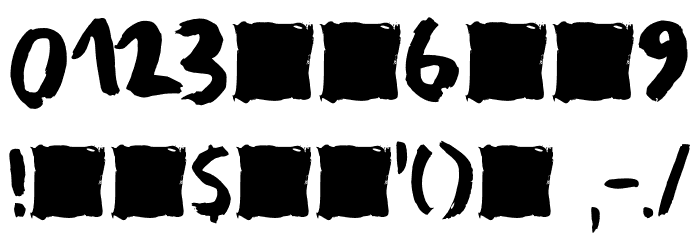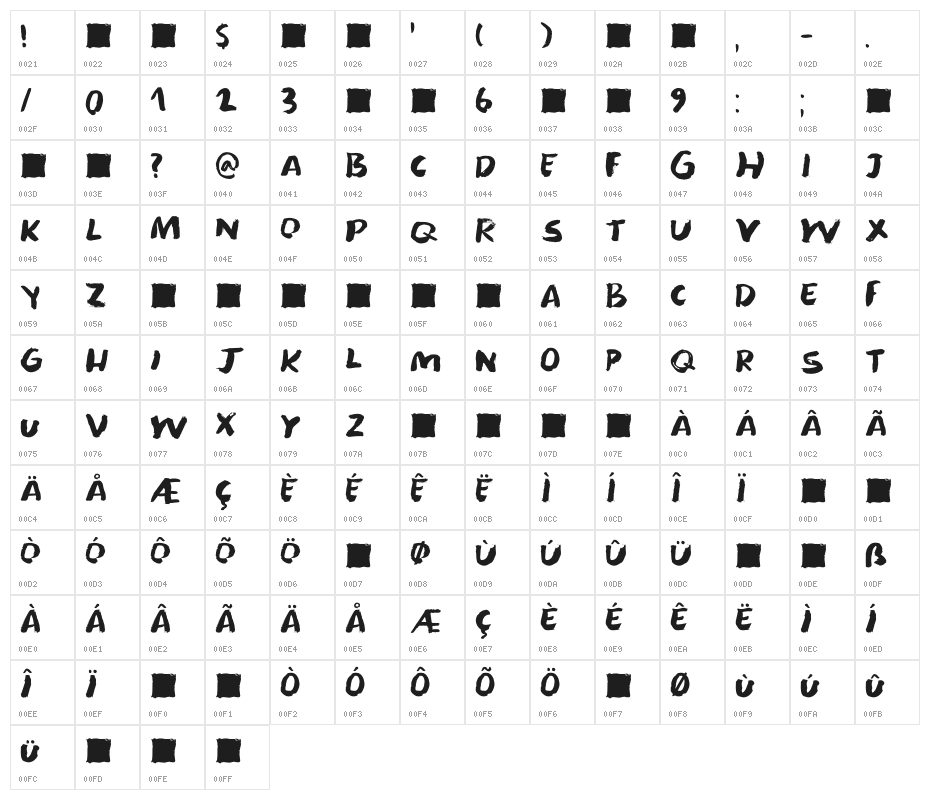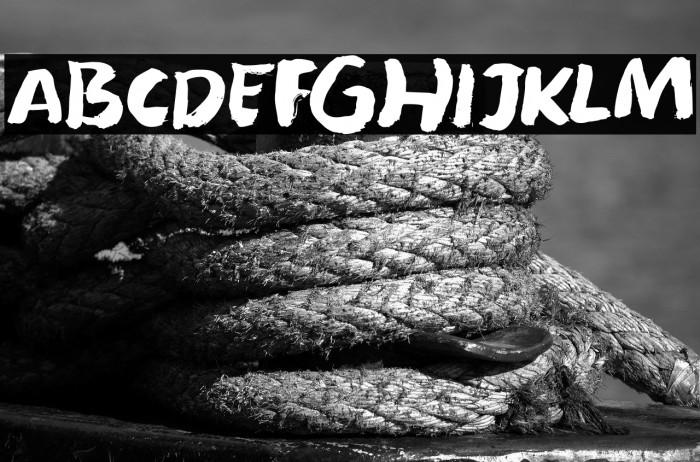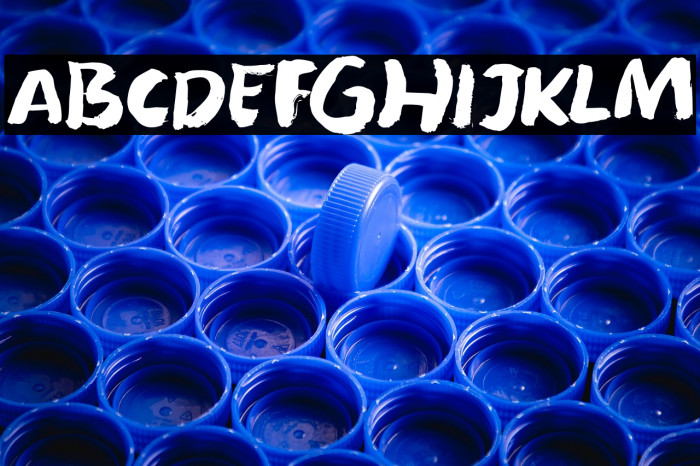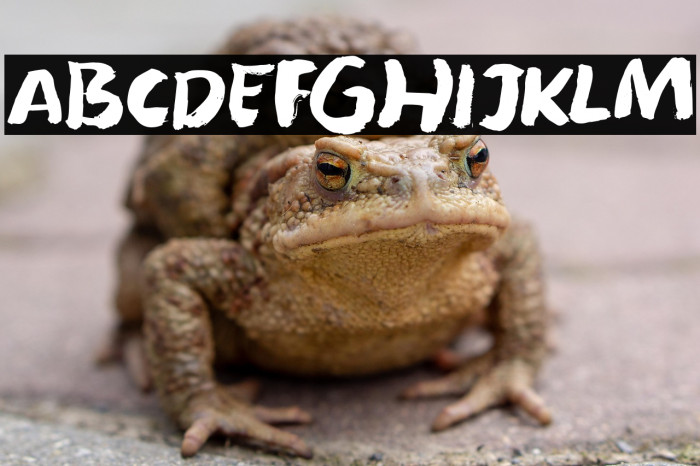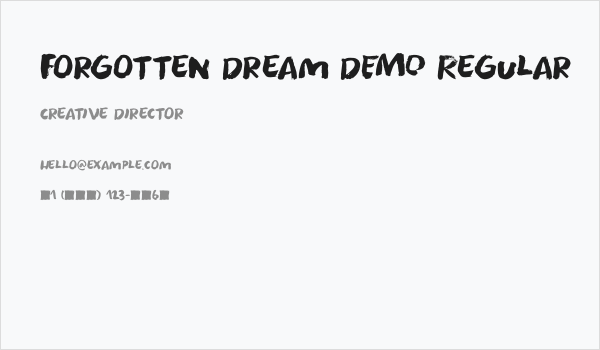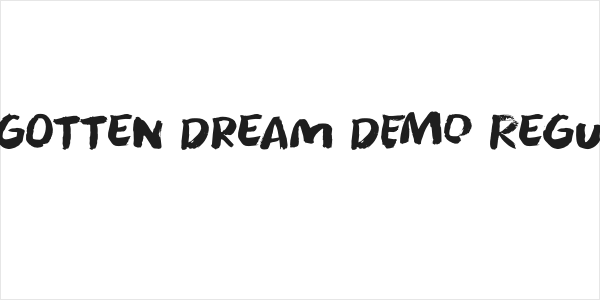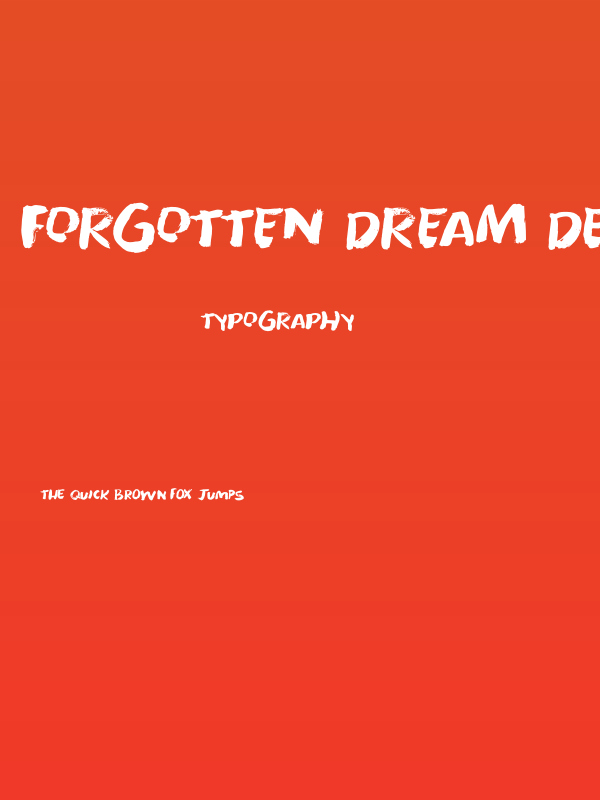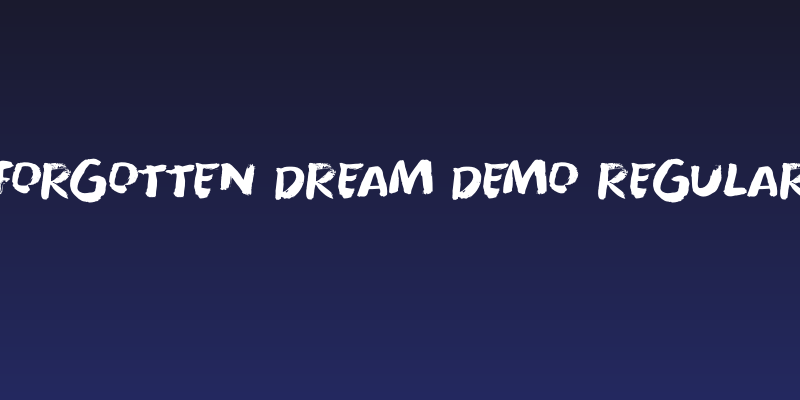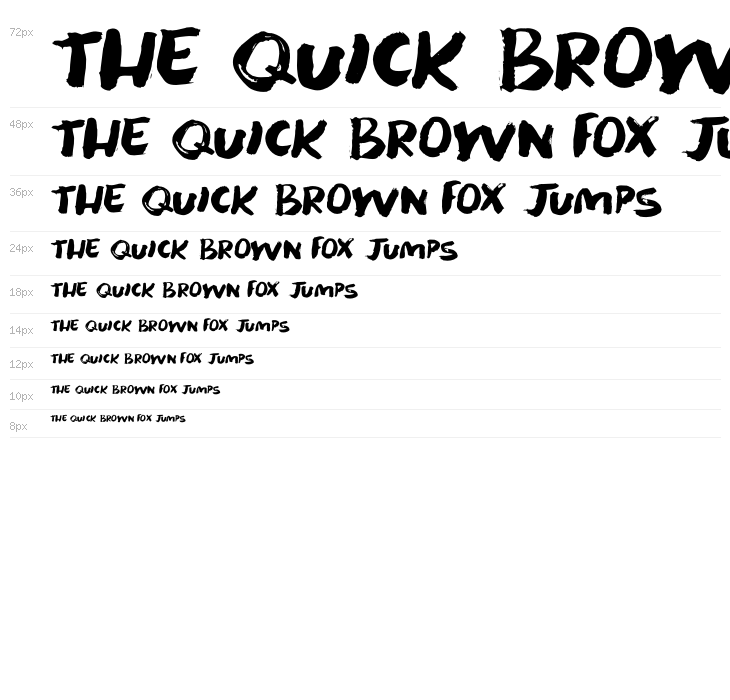
Forgotten Dream DEMO Regular Font
Forgotten Dream DEMO Regular Description
This font features a bold and expressive style with a hand-painted appearance. The characters are irregular and dynamic, giving a sense of movement and energy. The strokes are thick and uneven, creating a textured look that mimics brush strokes. This font is highly decorative, making it suitable for artistic and creative projects. The uppercase and lowercase letters maintain a consistent style, while the numbers and special characters follow the same bold, textured design.
| Proposed Projects | Ideal for artistic projects, posters, album covers, and any design requiring a bold, expressive touch. |